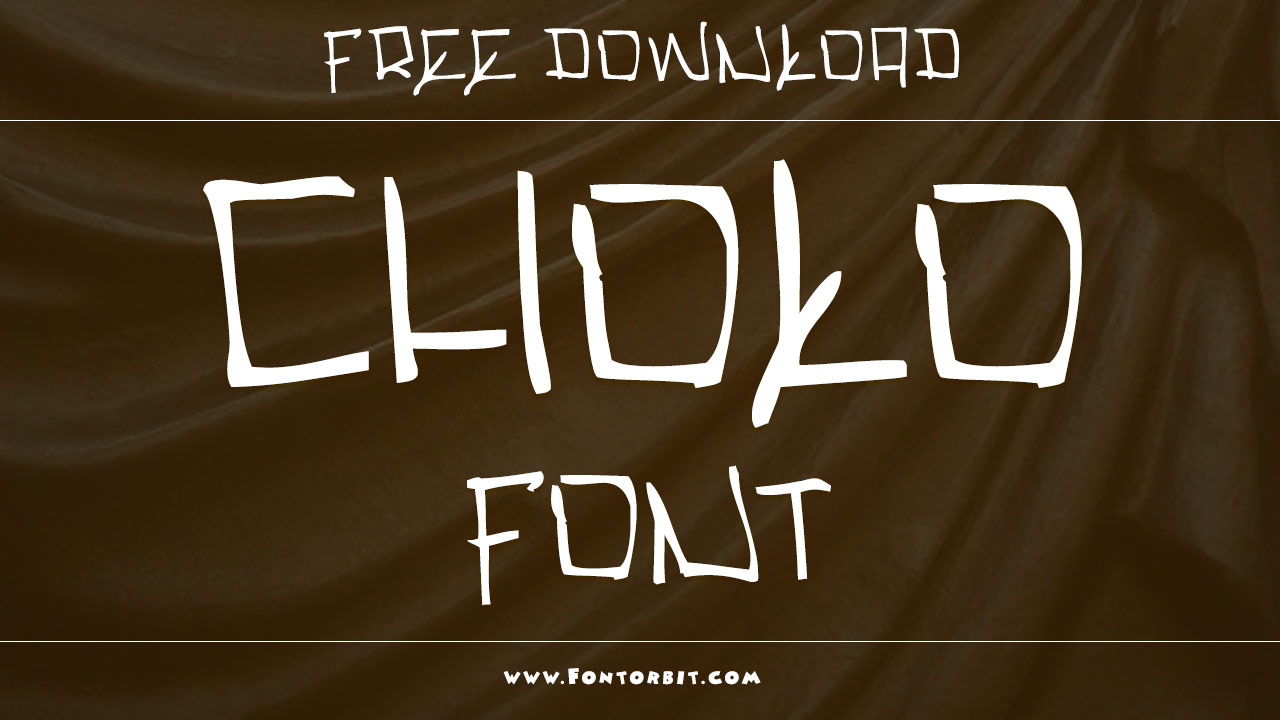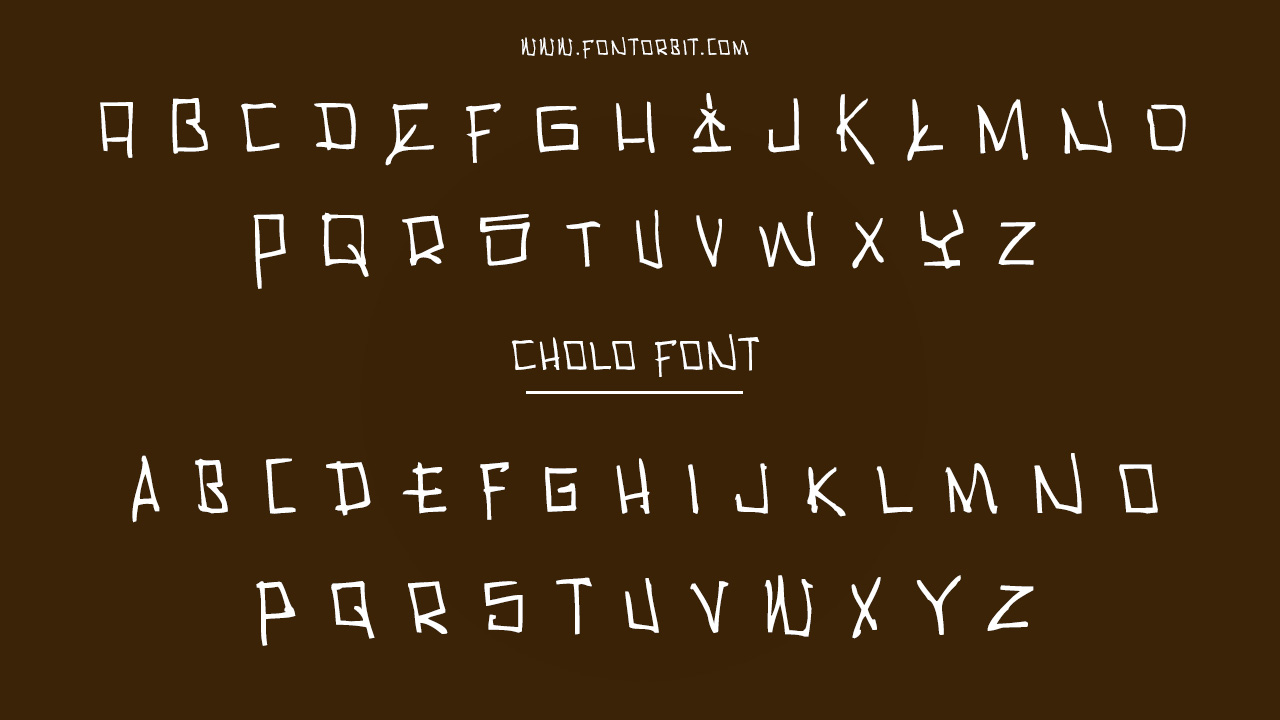
The Cholo Font by Apostrophic Labs is a decorative typeface inspired by graffiti and street art culture. Designed with the bold handwriting style of Mike Sedillo, this font embodies an organic, handwritten aesthetic that blends perfectly with urban and creative themes. Its unique style makes it a standout option for projects requiring a raw, artistic edge. Whether you’re designing posters, tattoos, or logos, the Cholo Font delivers a touch of originality and flair.
The Cholo Font belongs to the script font family, featuring bold, handwritten letterforms with a graffiti-inspired essence. It is available in TrueType Font (TTF) format and comes in a single style, making it suitable for both digital and print projects.
Cholo Font Usage Occasions
The Cholo Font is perfect for projects that demand a bold, urban, or artistic vibe. Common applications include:
- Logos: Ideal for brands with a streetwear or urban focus.
- Posters: Perfect for event announcements or eye-catching promotional designs.
- Tattoo Art: A natural choice for tattoo lettering with a handwritten flair.
- Printed Materials: Great for flyers, brochures, and business cards.
- Typography Projects: Adds a graffiti-inspired aesthetic to book covers and banners.
- Digital Graphics: Complements tools like Adobe Illustrator for creating detailed visuals.
Features Of The Cholo Font
- Style: Bold and handwritten, inspired by graffiti art.
- Characters: Includes a versatile character map with unique glyphs and accents.
Cholo Font Found In Use
The distinctive graffiti style of the Cholo Font makes it a popular choice for:
- Street art-inspired designs
- Tattoo art and calligraphy projects
- Urban and modern branding
- Merchandise, including T-shirts and accessories
- Pop culture or retro-themed posters
The Cholo Font is a versatile and impactful choice for artistic and urban-themed projects. Its bold, graffiti-inspired style makes it perfect for logos, posters, tattoos, and other creative ventures. Whether you’re working on digital graphics or printed materials, this font adds a distinctive, edgy touch to your designs.
1.What Is The Cholo Font, And Who Designed It?
The Cholo Font is a decorative font inspired by graffiti art and urban street culture. It was designed by Mike Sedillo and made available by Apostrophic Labs. The font reflects a handwritten style with bold and chunky letterforms, perfect for creative projects like tattoo art, graffiti-inspired designs, and street art.
3.What Are The Key Features Of The Cholo Font?
The Cholo Font comes in 1 style with a regular font format. It is a script font with a bold, handwritten aesthetic, inspired by graffiti. It includes a versatile character map suitable for both modern fonts and decorative fonts, making it ideal for diverse creative applications.
4.What Are Some Common Uses Of The Cholo Font?
The Cholo Font is widely used in projects like:
- Logos: For urban and tattoo font branding.
- Posters and Flyers: Eye-catching display fonts for events or promotions.
- Calligraphy Fonts: Adds a graffiti-inspired touch to printed materials.
- Street Art Designs: Reflects an edgy, artistic aesthetic.
- Tattoo Art: Popular for Cholo calligraphy and original styles.
5.What Are Some Similar Fonts To The Cholo Font?
If you enjoy the Cholo Font, you may find these options appealing:
- Horror Cholo Font: A graffiti font with a darker aesthetic.
- Old English Font: For a calligraphic and gothic look.
- Brush Fonts: To create a hand-painted effect.
- Western Fonts: Ideal for retro or rustic themes.
These fonts share elements of bold, handwritten fonts and fancy fonts.
7.Can the Cholo Font be customized for color and effects?
Yes, the Cholo Font can be easily adapted for color versions and effect fonts in design software. By using tools like Adobe Illustrator, designers can add vibrant colors, shadows, or unique effects to make the text stand out in tattoo art, street art, or other design projects.
8.What Makes The Cholo Font A Popular Choice Among Designers?
The Cholo Font’s original style, inspired by graffiti and handwritten fonts, offers an edgy, urban aesthetic. Its versatility across projects like street art, tattoo designs, and printed materials makes it a favorite. Additionally, being a free font with easy accessibility ensures its popularity in modern and retro-themed designs.